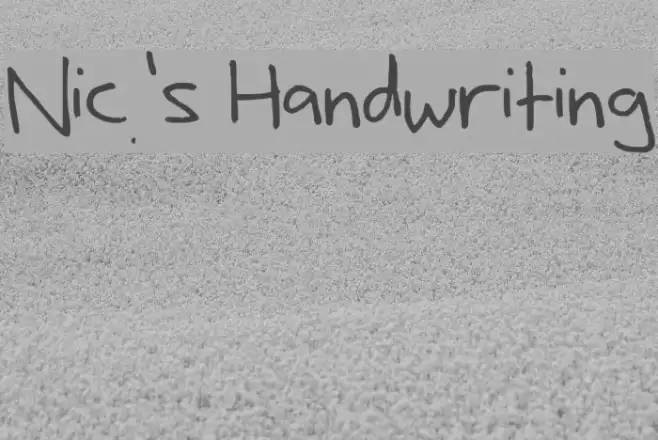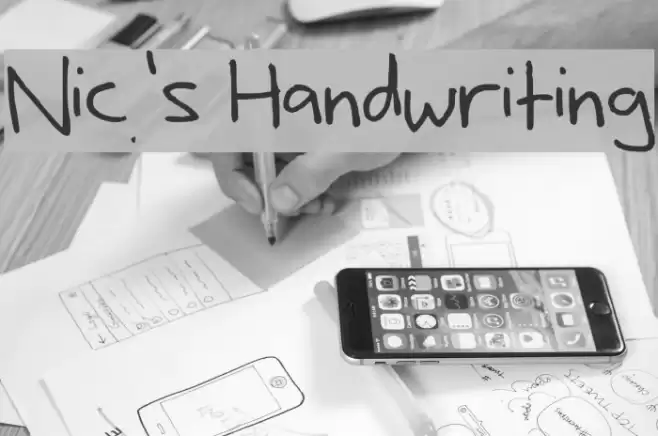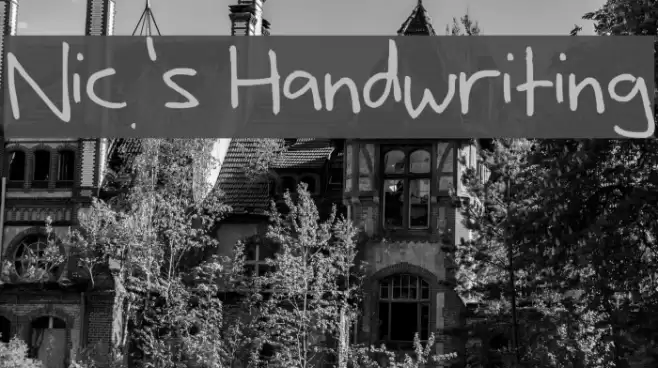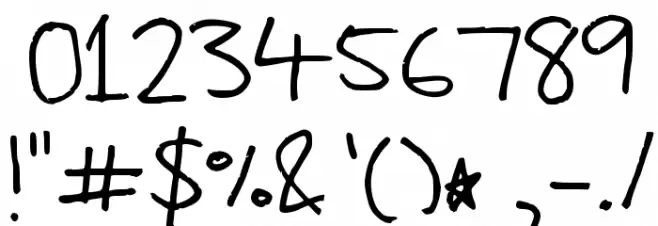
Nic's Handwriting Font
Nic's Handwriting Description
This font exudes a casual and personal touch, reminiscent of authentic handwriting. Each character is crafted with a slightly uneven stroke, adding to its charm and uniqueness. The uppercase letters maintain a consistent height, while the lowercase letters vary slightly, enhancing the handwritten feel. The numbers and special characters are clear and legible, maintaining the same playful style. This font is perfect for projects that require a personal, informal touch, such as greeting cards, personal notes, or creative projects. Its overall appearance is approachable and friendly, making it suitable for a wide range of applications.
A casual, handwritten-style font with a playful and personal touch from Handwritten fonts.
- Proposed Projects: Ideal for greeting cards, personal notes, creative projects, and informal branding.
- Overall Style: Casual, Playful
- Use Case: Headlines, Informal text, Creative projects